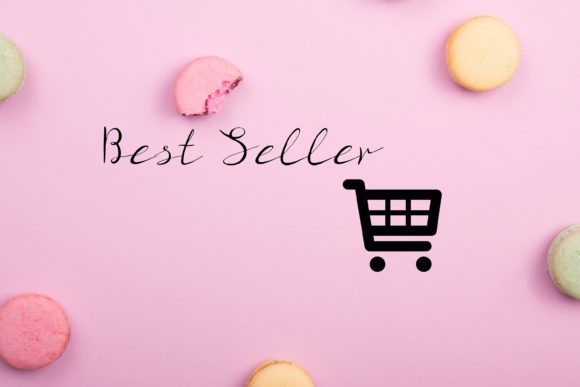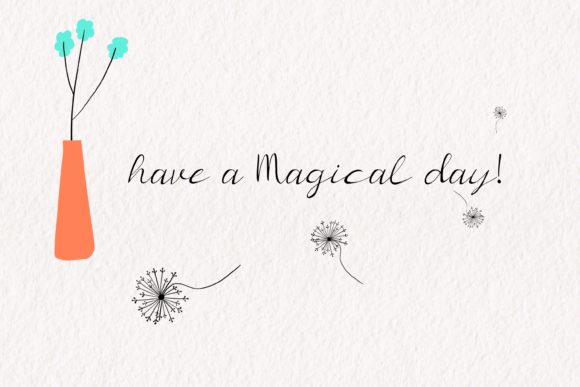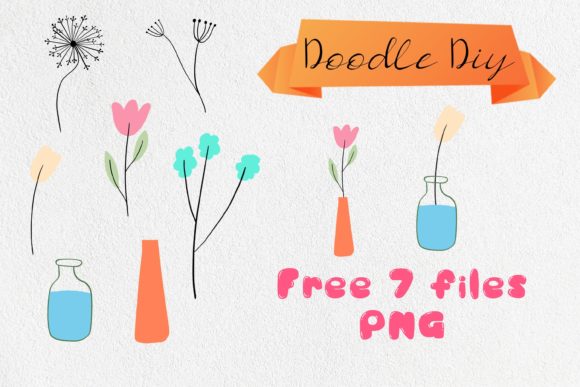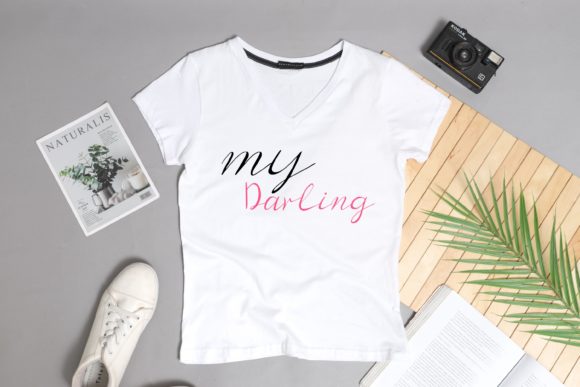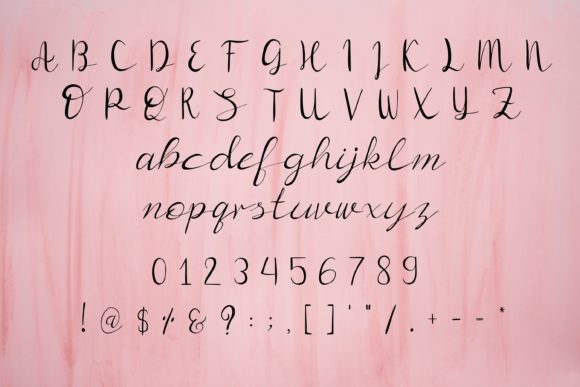
Coffee First Font: The Perfect Script Font for Your Creative Projects
Are you a designer or crafter looking for a beautiful and joyful script font to elevate your creative projects? Look no further than Coffee First Font! This stunning script font is perfect for creating gorgeous wedding invitations, beautiful stationery art, eye-catching social media posts, and much more.
What is Coffee First Font?
Coffee First Font is a simple lettered, joyful, and beautiful script font that is sure to capture your heart. Its ravishing style is perfect for adding a touch of elegance and sophistication to any project. With its flowing curves and delicate lines, Coffee First Font is the perfect choice for designers and crafters who want to create something truly special.
Features of Coffee First Font
- Simple and Elegant Design: Coffee First Font features a simple and elegant design that is perfect for creating beautiful and sophisticated projects.
- Joyful and Beautiful: This script font is joyful and beautiful, making it perfect for adding a touch of happiness and whimsy to your projects.
- Script Font: Coffee First Font is a script font, making it perfect for creating flowing and elegant text.
- Lettered Design: This font features a lettered design, making it perfect for creating beautiful and unique projects.
Uses of Coffee First Font
Coffee First Font is a versatile font that can be used for a wide range of projects, including:
- Wedding Invitations: Create gorgeous wedding invitations that will set the tone for the big day.
- Stationery Art: Use Coffee First Font to create beautiful stationery art that will add a touch of elegance to any correspondence.
- Social Media Posts: Create eye-catching social media posts that will grab the attention of your followers.
- Branding and Packaging: Use Coffee First Font to create beautiful branding and packaging that will set your business apart.
Why Choose Coffee First Font?
There are many reasons why Coffee First Font is the perfect choice for designers and crafters. Here are just a few:
- Unique and Elegant Design: Coffee First Font features a unique and elegant design that will add a touch of sophistication to any project.
- Easy to Read: This script font is easy to read, making it perfect for creating projects that require a lot of text.
- Versatile: Coffee First Font is a versatile font that can be used for a wide range of projects.
- High-Quality: This font is high-quality, making it perfect for creating professional-looking projects.
Tips for Using Coffee First Font
Here are a few tips for using Coffee First Font:
- Use it for Headings and Titles: Coffee First Font is perfect for creating beautiful headings and titles.
- Pair it with Other Fonts: Pair Coffee First Font with other fonts to create a unique and interesting look.
- Experiment with Different Sizes and Colors: Experiment with different sizes and colors to find the perfect look for your project.
| Font Name | Coffee First Font |
| Author | AfifShop |
Coffee First Font is a beautiful and versatile script font that is perfect for designers and crafters. With its simple and elegant design, joyful and beautiful style, and wide range of uses, Coffee First Font is the perfect choice for any project. Whether you’re creating wedding invitations, stationery art, social media posts, or branding and packaging, Coffee First Font is sure to impress.